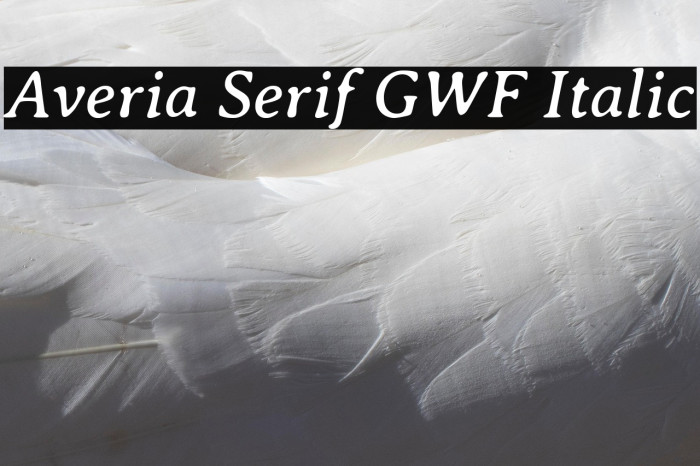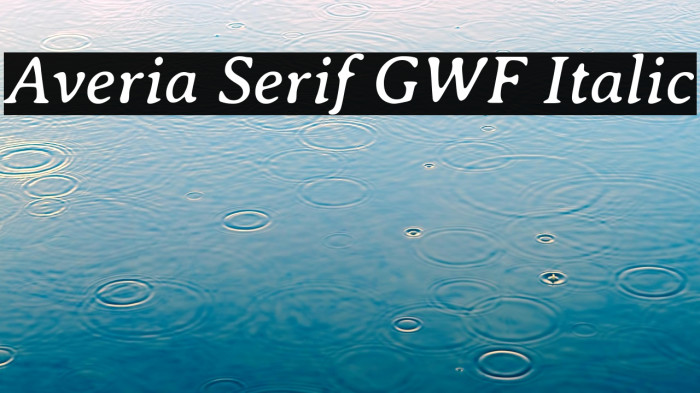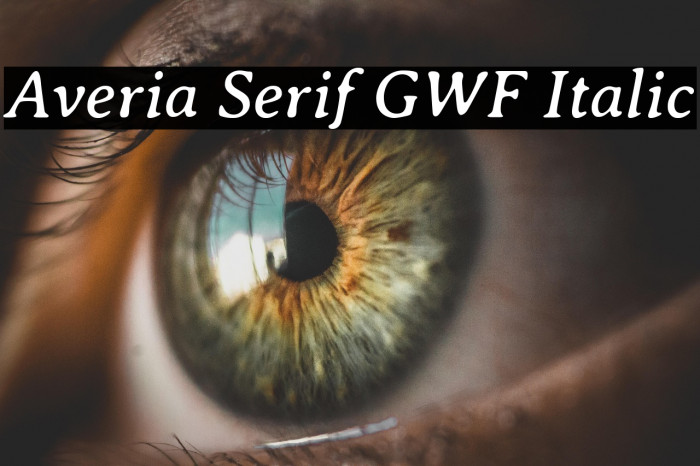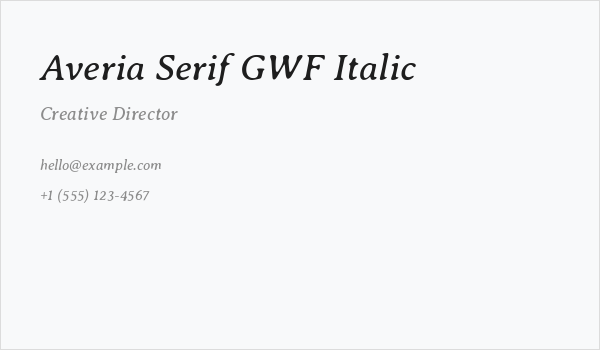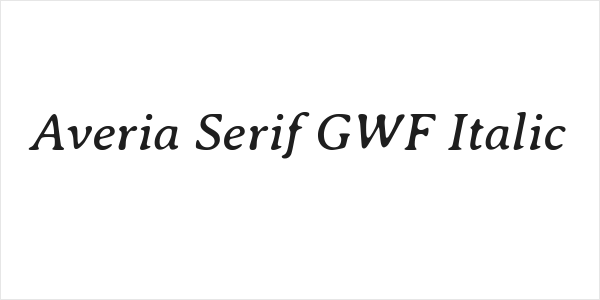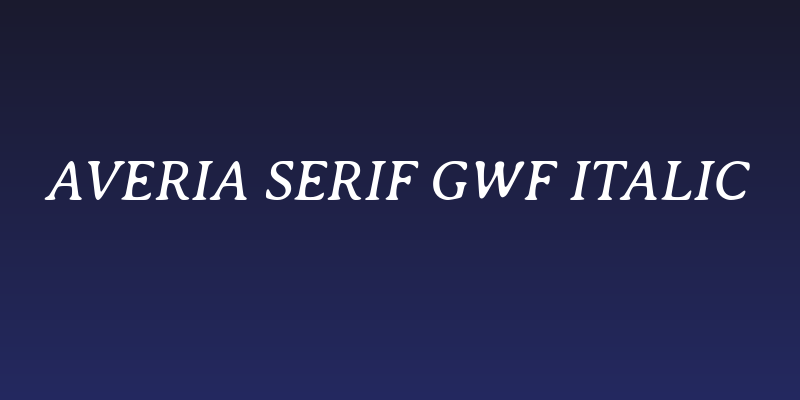
Averia Serif GWF Italic Font
Averia Serif GWF Italic Description
This font features a classic serif style with a distinct italic slant, giving it an elegant and sophisticated appearance. The characters are well-defined with smooth curves and moderate stroke contrast, making it suitable for both formal and creative applications. The uppercase letters are bold and commanding, while the lowercase letters maintain a graceful flow. Numerals are clear and balanced, ensuring readability. Special characters are thoughtfully designed to complement the overall aesthetic, making this font versatile for various design needs.